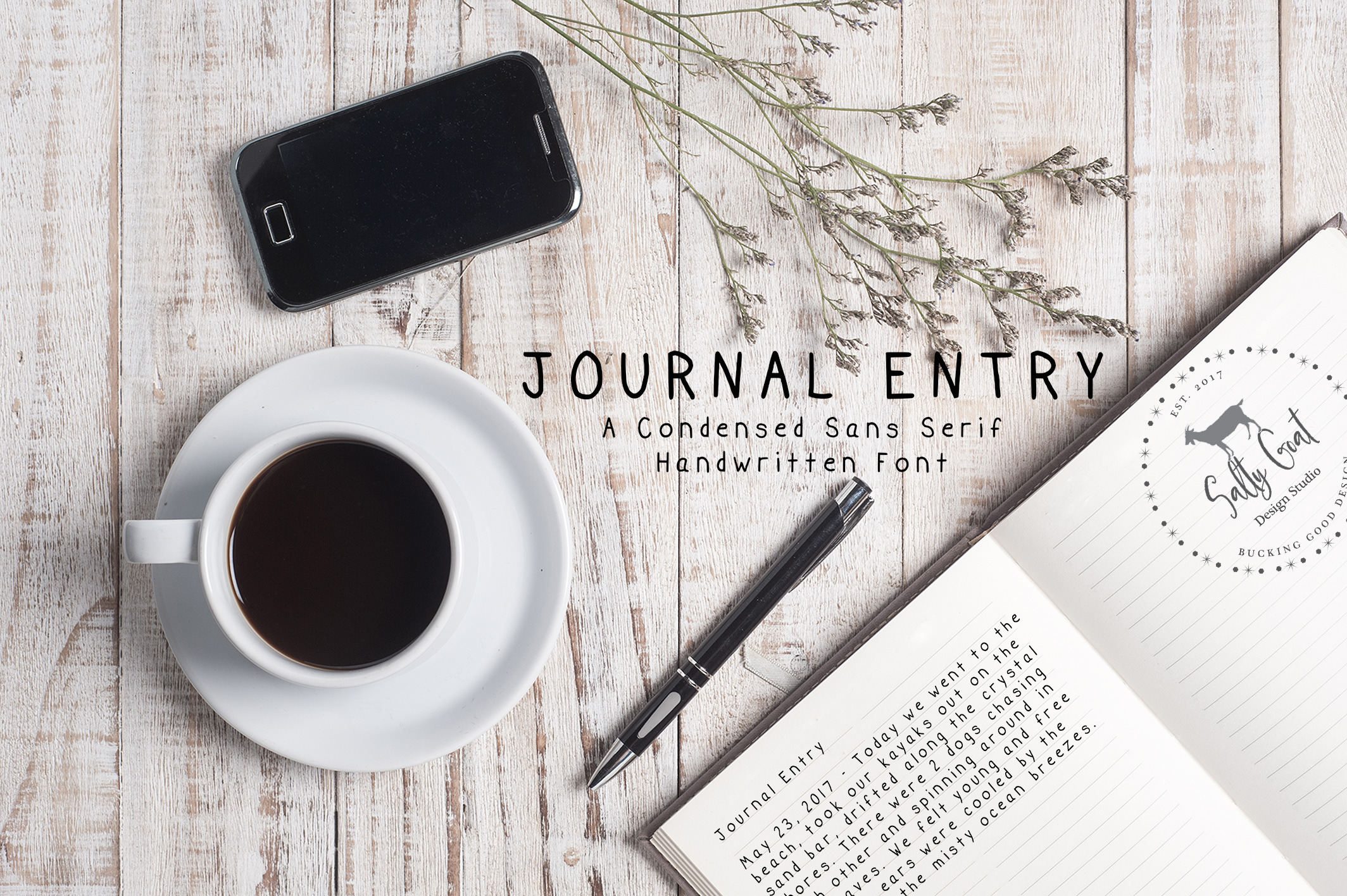
Journal Entry Handwritten Print Font
Journal Entry is a minimalistic handwritten font with a rustic twist. It's the "go to" handwritten font for designs and branding materials that call for a rustic yet simple look. It pairs perfectly with both bold and script fonts.